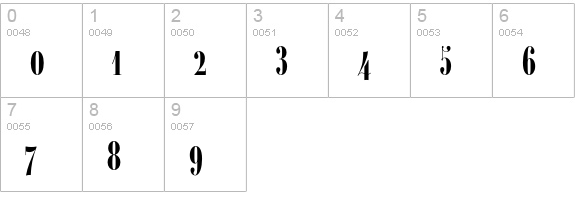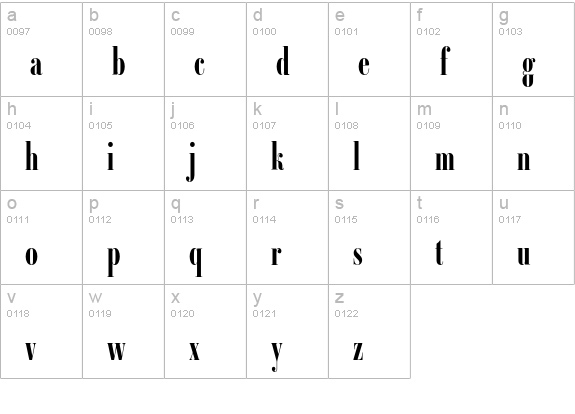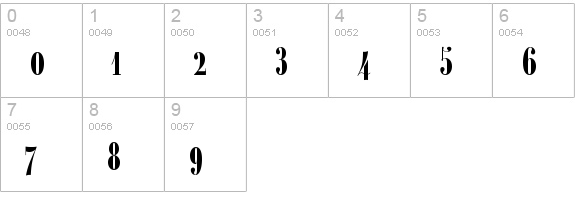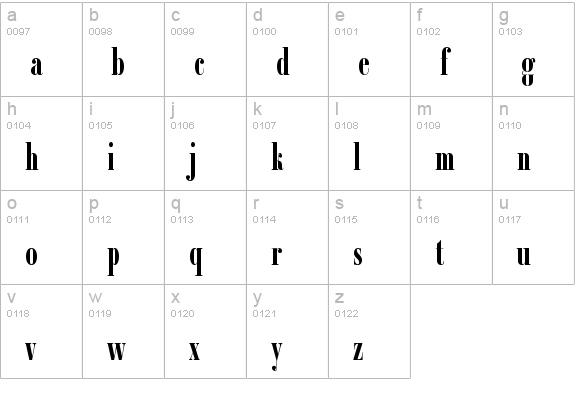
Ambroise Francois Bold Font Details
Ambroise Francois Bold is a strong, high-contrast variant in the Ambroise typeface family \xE2\x80\x94 well suited to headlines, attention-grabbing titles, and strong calls-to-action.
Ambroise Francois Bold is a stunning and versatile font that exudes elegance and sophistication. With its bold and commanding presence, this typeface is perfect for making a strong statement in your designs. The sharp serifs and clean lines give Ambroise Francois Bold a timeless and classic look that is sure to catch the eye. Whether you're designing a logo, branding materials, invitations, or any other project that requires a touch of sophistication, Ambroise Francois Bold is the perfect choice. Its bold weight makes it ideal for headlines and titles, while still maintaining readability for body text. The best part? Ambroise Francois Bold is completely free to download at FontsMarket.com. This means you can add this stylish font to your collection without breaking the bank. Don't miss out on the opportunity to elevate your designs with the timeless beauty of Ambroise Francois Bold.